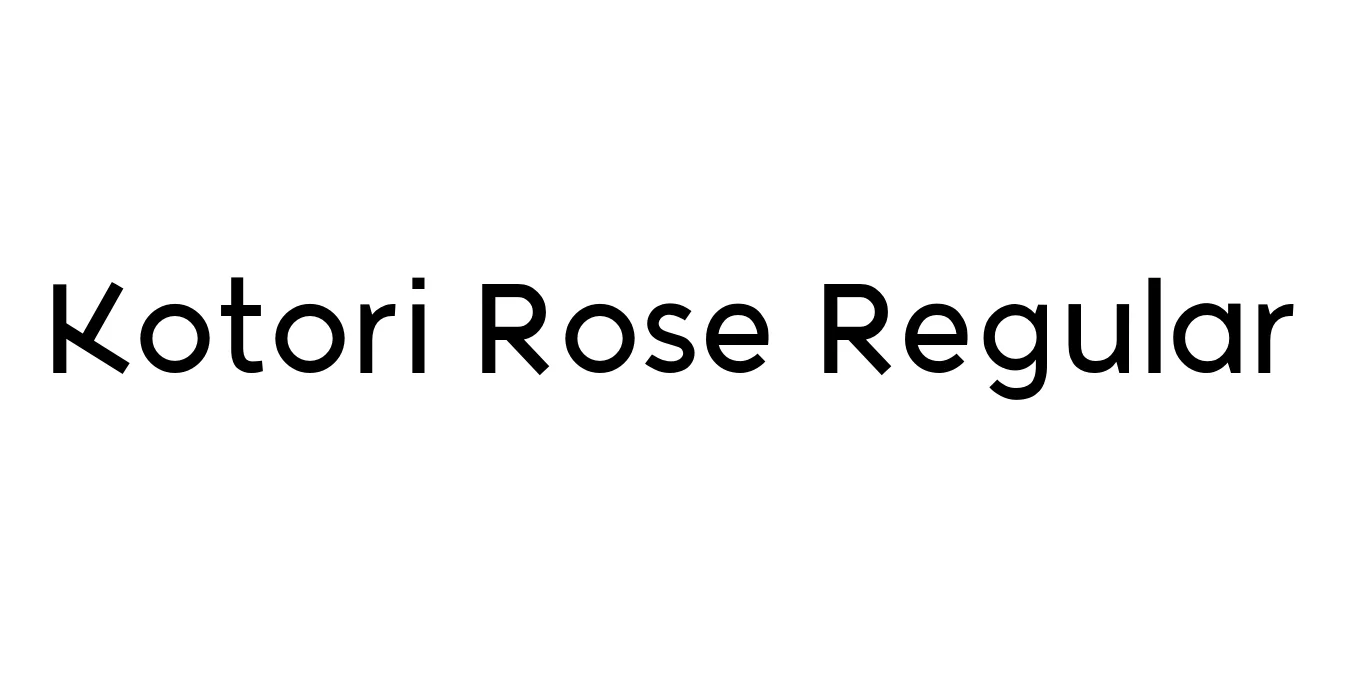
Kotori Rose Regular
Designed by The Fontry
Kotori Rose Regular is a contemporary geometric sans-serif typeface that emphasizes clarity and modern aesthetics. Developed with a focus on balanced proportions and open counters, this font draws inspiration from classic modernist designs while integrating unique rounded nuances that provide a softer, more approachable personality. Its clean construction makes it highly versatile for both digital environments and traditional print media.
As a member of a larger font family, the Regular weight serves as the foundation for legibility, excelling in long-form text and user interface components. Its neutral yet distinct character allows it to blend seamlessly into various design contexts, from corporate identity systems to creative editorial layouts, ensuring a professional look that remains legible even at smaller scales.
Kotori Rose Regular Best Uses
Perfect for mobile apps and web platforms due to its high legibility.
Ideal for logos and professional business documentation.
Works well for body text in magazines and brochures.
Effective for clean, modern headings and promotional materials.